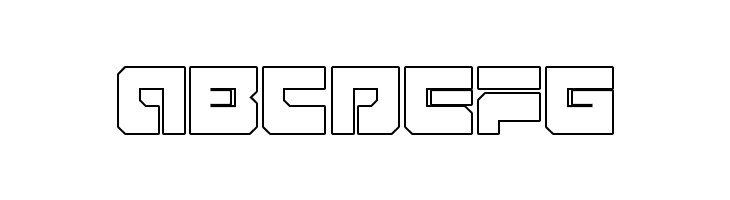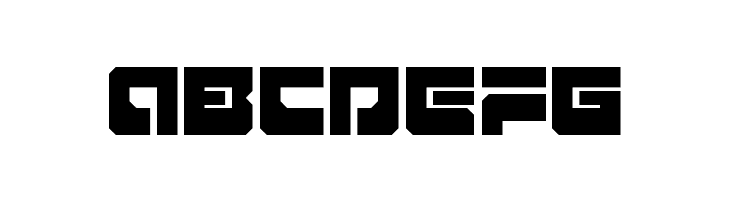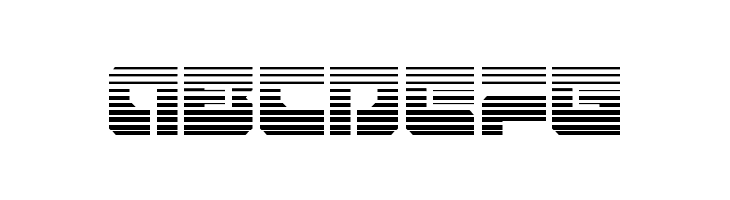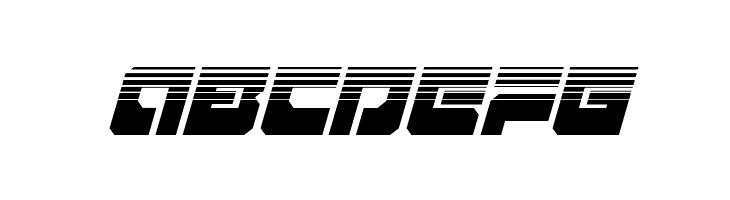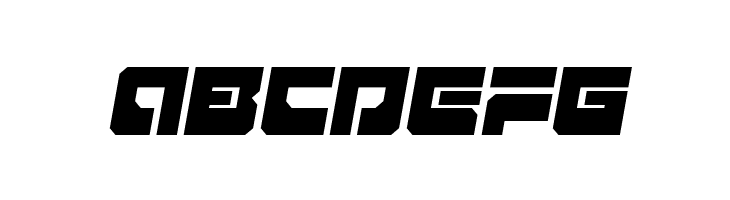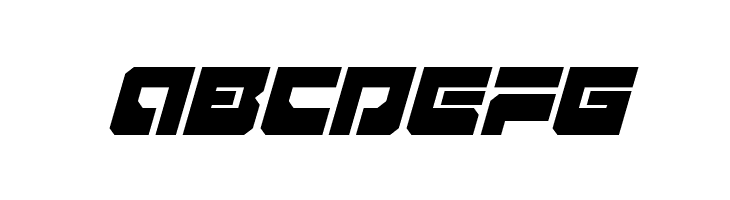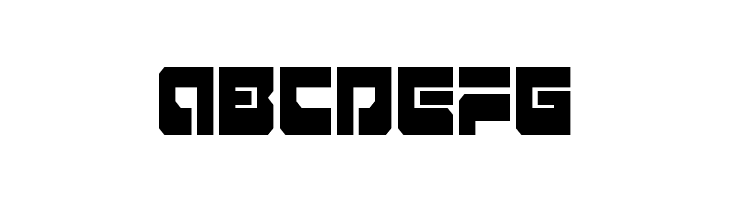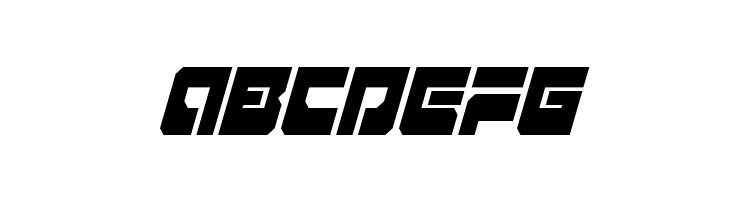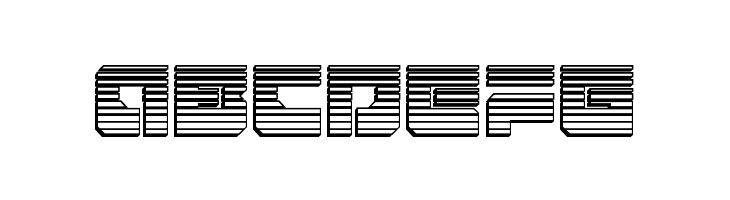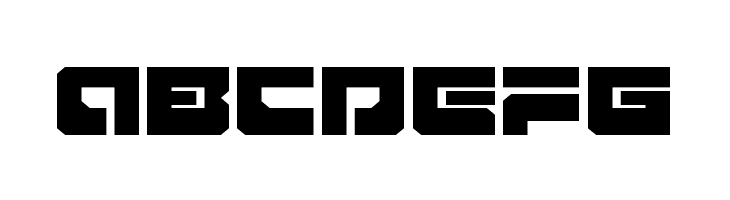
Yamagachi 2050 3D Italic Font
A bold, 3D italic font with a futuristic, geometric design.
Yamagachi 2050 Italic Font
A bold, futuristic italic font with angular, geometric shapes.
Yamagachi 2050 Semi-Italic Font
A bold, futuristic font with angular, semi-italic characters.
Yamagachi 2050 Halftone Italic Font
A futuristic, italicized font with a halftone effect and bold, angular characters.
Yamagachi 2050 Super-Italic Font
A bold, italicized font with a futuristic and angular design.
Yamagachi 2050 Academy Italic Font
Futuristic, bold italic font with outlined, geometric characters.
Yamagachi 2050 Chrome Font
A futuristic, geometric font with bold, multi-layered lines and a chrome-like appearance.
Yamagachi 2050 Chrome Italic Font
A futuristic, chrome-like italic font with dynamic parallel lines.
Yamagachi 2050 Outline Font
A futuristic, geometric outline font with bold, angular shapes.
Yamagachi 2050 Font
A bold, futuristic font with a geometric and industrial design.
Yamagachi 2050 Condensed Font
A bold, geometric font with a futuristic and condensed style.
Yamagachi 2050 Gradient Font
A futuristic, gradient-style font with a bold, digital aesthetic.
Yamagachi 2050 Laser Italic Font
A futuristic, bold, and italic typeface with angular, geometric shapes.
Yamagachi 2050 Outline Italic Font
Futuristic, geometric outline font with italicized characters.
Yamagachi 2050 3D Font
A bold, 3D futuristic font with a geometric, digital aesthetic.
Yamagachi 2050 Leftalic Font
A bold, futuristic font with sharp angles and geometric shapes.
Yamagachi 2050 Condensed Italic Font
A bold, condensed, and italicized futuristic font with high contrast and geometric shapes.
Yamagachi 2050 Academy Font
Yamagachi 2050 Halftone Font
A futuristic, bold font with a halftone effect and geometric design.
Yamagachi 2050 Laser Font